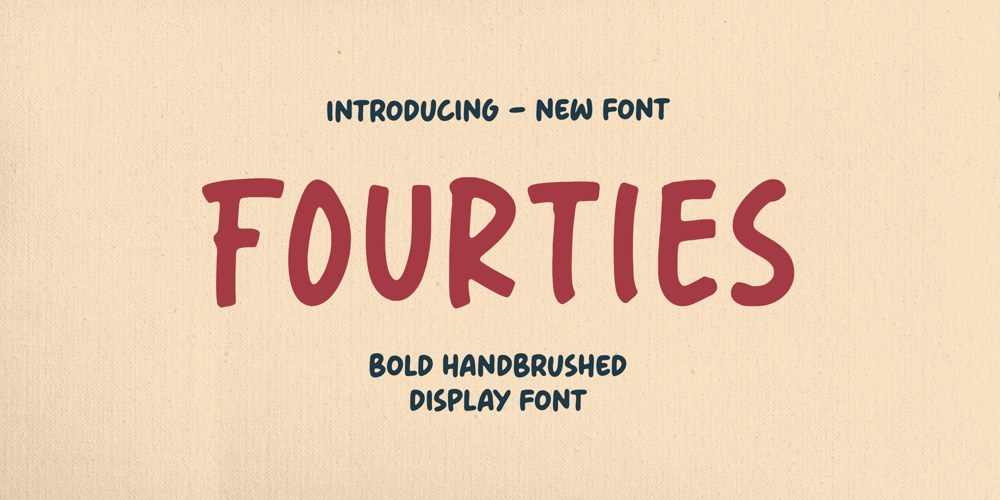
Fourties Font Family was designed by Muhammad Fathurrohman and published by Aestherica Studio. Fourties contains 1 styles and family package options. Fourties is an elegant bold hand-brushed display font with capital letters. With a cool style, it will add a bold and powerful touch to your projects, inspiring you to create something bold too. Fourties is ideal for headings, flyers, greeting cards, product packaging, book covers, printed quotes, logotypes, and album covers.